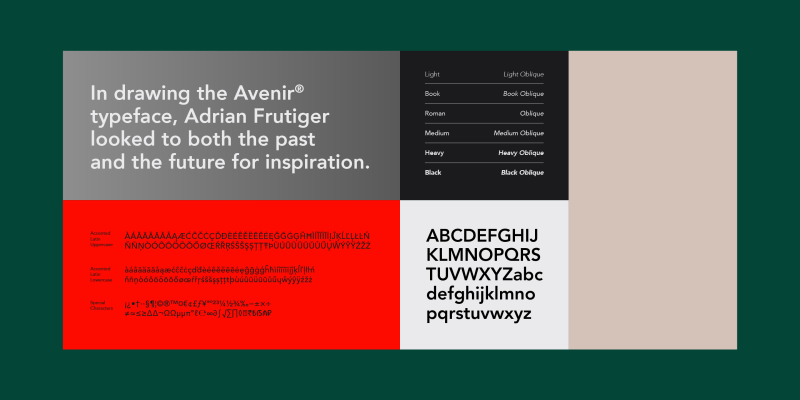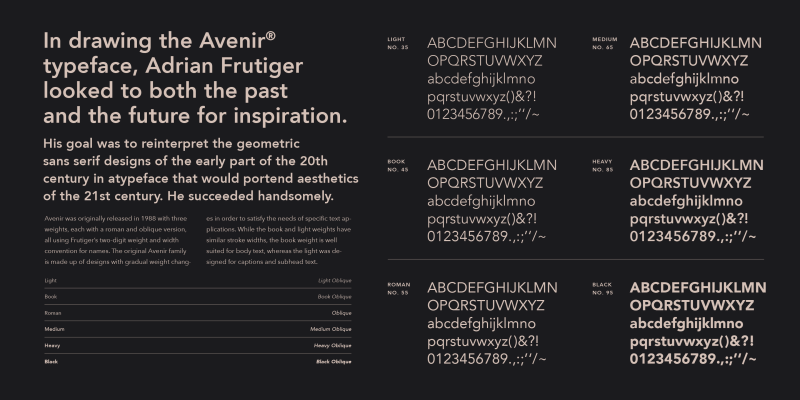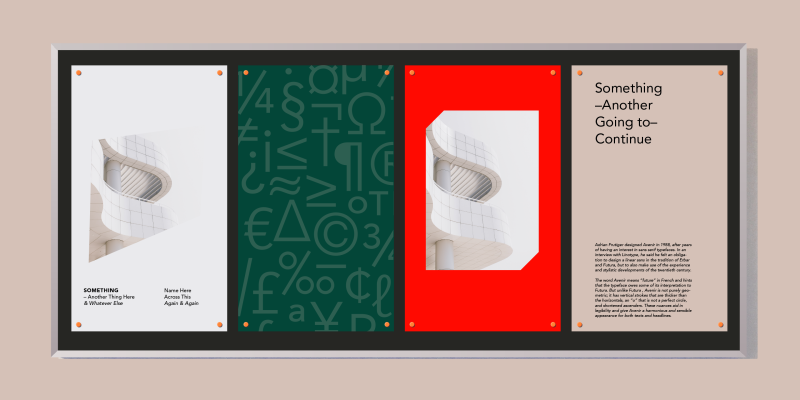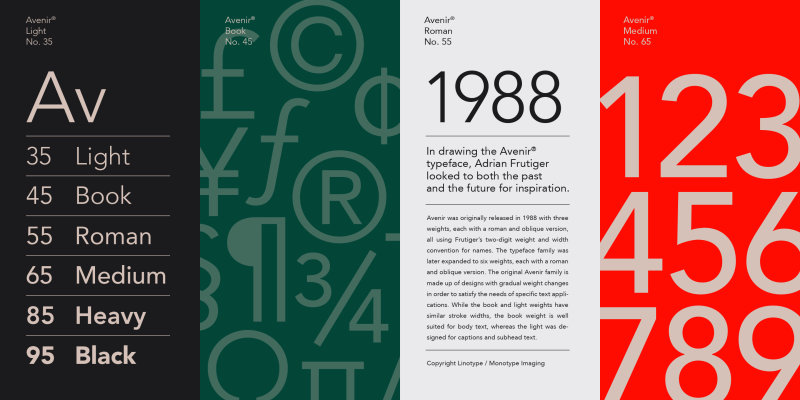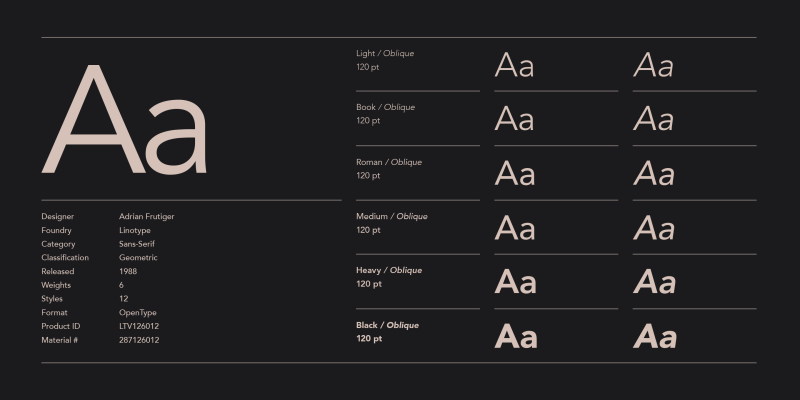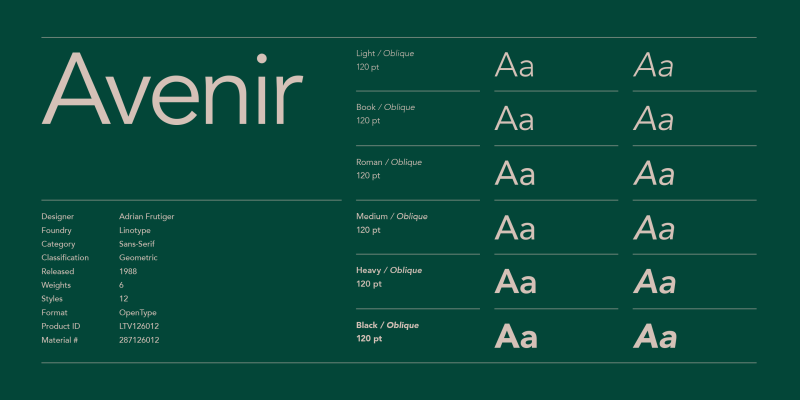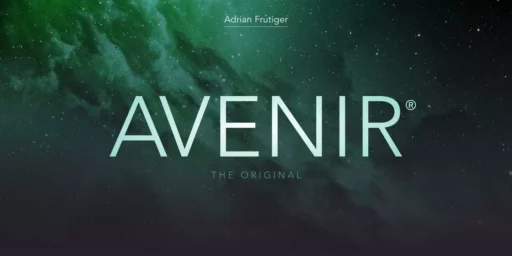
Avenir Font
Avenir is a font that is gradually becoming one of the more commonly known typography in the world of designs. This humanist typeface, designed by Adrian Frutiger in 1987, is a sans-serif font.
Avenir is often regarded as a primary and minimalistic typeface. The meaning of “future” in French describes the font type that blends timelessness and fashion up-to-date.
The font emerged to satiate the increasing demand for a typeface that could effectively be utilized on various platforms, such as printing to digital media. He aimed to create a font that would simultaneously be used in very different environments, legible and timeless. An Avenir is simple but humanized with clean lines and a balanced shape among designers and typewriters.
The lineage of Avenir extends back to the late 1980s when Linotype commissioned Adrian Frutiger to create a new type system that conformed to modern design. Frutiger mainly took bits from Univers and his earlier typefaces, Frutiger and Optima, to create a more multifaceted and flexible design.
This phase spanned as early as years, with Frutiger consistently creating and finally perfecting every letterform to achieve that commendable balance of reading-friendly and aesthetic look. It was in 1988 that the fonts were released into the market, and soon, all of them were recognized for their design cleanliness and modern features.
Over time, Avenir has undergone some revisions and improvements to its digital output and character set expansion. As a result of introducing these latest upgrades, Avenir is a design tool that everybody can highly depend on in a fast-changing world.
Avenir has a noticeable touch of distinguishable features and peculiarities, distinguishing it from other typefaces. Its primary characteristic is its geometric construction, which gives it a distinctive, quintessential modern and minimalist look. The font has balanced conceptions in its structure, which promotes a legible and harmonious design.
Notably, Avenir’s outstanding feature is its wide range of weights and styles. Inside the Avenir Light family is a letter perfect for high emphasis and Avenir Black to create a psychological effect. The diversity in the layout types allows designers to create layouts with clear visual hierarchy and priority.
Similarly, Avenir presents a fresh, timeless approach compared to commonly used fonts such as Helvetica or Futura. Its delicate details, like the tiny ridges and openings, create a better feeling of compatibility and approachability.
Feature Description Geometric Design Avenir font has a clean and modern geometric design, making it easy to read and aesthetically pleasing. Multiple Weights Avenir font comes in multiple weights, allowing for versatility in design and emphasis on certain words or phrases. Large Character Set Avenir font has an extensive character set, including various punctuation marks and special characters, making it suitable for various languages and applications. OpenType Features Avenir font includes OpenType features such as ligatures, alternate characters, and small caps, providing even more design options and customization. Readable in Small Sizes Avenir font is highly readable even at small sizes, making it ideal for body text and other small applications.Avenir gives customers many choices regarding the styles and weights of fonts that can be utilized for various design styles. undefined
Thus, these tassels are perfect for adding a touch of sassiness or sophistication to your outfit. They may also work well for body text or when softer text is needed.
The average weight of Avaire has the default styling and strikes a delicate balance between thinness and fatness. It is multifunctional and can be used for headings and body text.
The Avenir Bold text type is a good option for designs that require a strong visual impact. Its thick boldness steals the show or catches eyeballs, headings, or significant information.
The Cleveland Bold of Avenir weighs the most among the family. Its sense of power and dominance is perfect for creating a dramatic headline or status accent.
The following are some cases that have taken shape in the Avenir font family. These are only a few of the many bands available in this family. Every font-weight is distinct and features different qualities, giving visual appeal to modern designs.
Among other options, though Avenir is the most popular one, there could be other fonts with such features, just like Avenir, which can be considered as the alternative. Here are a few options: Here are a few options:
Proxima Nova is a multifaceted vertical sans-serif typeface with the same properties as Avenir. It follows a wide selection of weights, making it appropriate for many typographic affairs and commercial applications.
Gotham is a geometry sans-serif font that conquers the minds of many graphics designers. Like Avenir, it is pretty clean and modern-looking and is widely used for signage and periodical design.
Montserrat is “Another dynamic lookalike for Avenir” font. It is multifunctional and provides many varieties of types and styles, which is suitable for those seeking the cheapest alternative on the market.
Simple letterforms survive angles, glare and movement, so Avenir Font suits door signs, menus boards and exhibition panels.
It sits in the Sans Serif Fonts group and reads as bold, condensed, humanist, modern. That makes it a candidate wherever those qualities help: headings, packaging, social graphics and brand work. Set it at the size you plan to use before deciding.